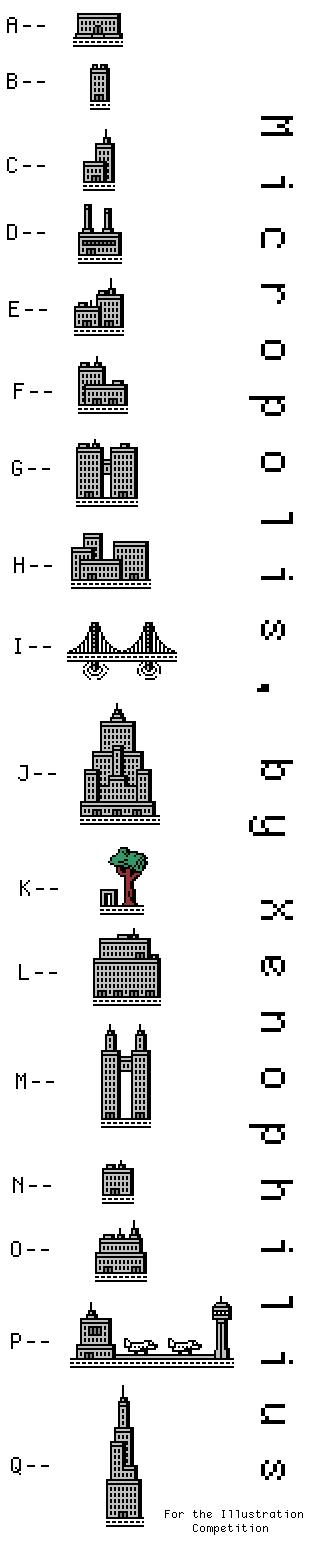
xe Micropolis
by Logan Thomason (xenophilius)
A pixel-city. That means it is a pixelated city. A city that is made of pixels. PIXELS, not bricks. The letters are as follows: A--Capitol building B--Plain building C--Building cluster 1 D--Factory E--Building cluster 2 F--Building cluster 3 G--Twin buildings H--Building cluster 4 I--Bridge J--Skyscraper #1 K--Central Park L--Huge Building M--Double Skyscrapers N--Plain building #2 O--Plain Building #3 P--Airport Q--Skyscraper R--Burned-down building S--Burned-down building 2 T--Space Needle (creds to my friend) Space--Road I'll probably add more buildings. Maybe another factory... I dunno.
well, you know i would like this. give me a bridge and i'll be real happy. very nice.
Bridge comin' right up, sir!
A church! A house!
I'll make a church! I'll make a house!
love the bridge. ...how about a subway/train?
Without doubt, this can become a Megalopolis... Even fits the style of "Metropolis" by F. Lang!
so far, i like this a lot!
PS, "So far" is right... I'm planning on making tons more buildings.
To get the city, just mash random keys.
That looks great! :) Maybe add some clouds and airplanes too?
@anexa: I would add a cloud, but the tree turned out absolutely horrible, and I'd rather not toy with anymore organic shapes. As for the planes, I'd rather have everything on the ground... It just makes more sense. I'll add an airport, though, if it makes you happy!
BTW, the sample above is not my official sample image... I need a better sample, and I have added more buildings. I'll get to work on the sample.
Very nice
I revised the height of the letters... it was originally more than 48 bricks. Now it's eligible for the competition!
Congratulations to the prestigious 3rd place.
Congrats for your Third Prize and your gorgeous great entry from the bottom of my heart!! At the end, I was right (It comes to be a Megalopolis!).
OMG! I won THIRD PLACE!! This is EPIC!!!!!!!!!!!!!!!!!!!!!
All of the entries were close, but I really think you worked hard and this deserves the third place. Or more ;)
I like the "K"
One thing im mad about. When I type my city name, it doesnt look a thing like it. Ha, well congratulations :)
Congrats! :) very stylish
Here's the competition sample (not made by me). Great work, whoever made it.
Epic!
@Dreamweaver: The only letters are A-T and Space; no lowercase and only limited capitals. If you use a letter not included in the font, it will automatically revert back to the default typeface, be it Times New Roman or Arial or Calibri. As far as I am aware, this only happens on Microsoft Word--I assume that is what you used?